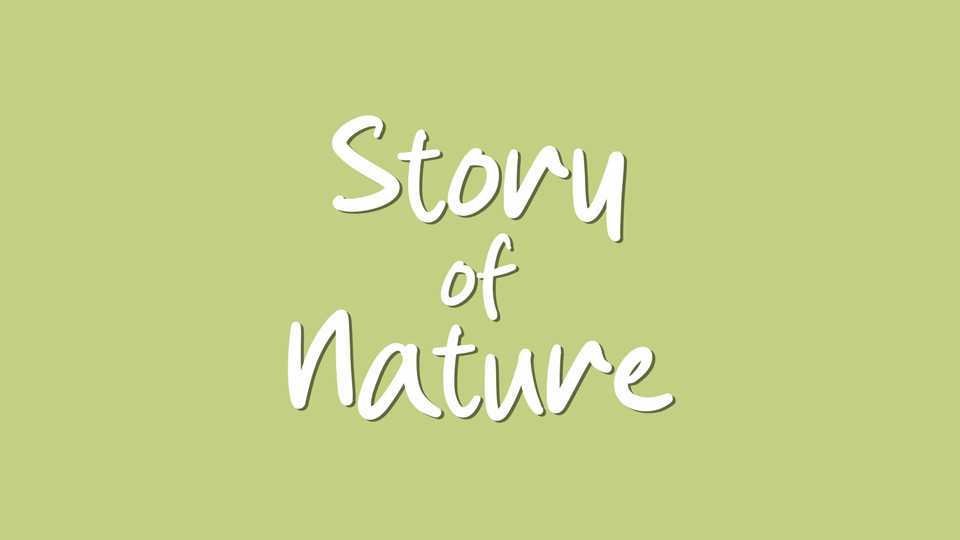
Download Story of Nature font, a simple and organic hand-drawn typeface that celebrates the beauty of nature’s artistic touch. This delightful typeface captures the essence of free-flowing lines and natural imperfections, exuding a sense of rustic elegance and authenticity.